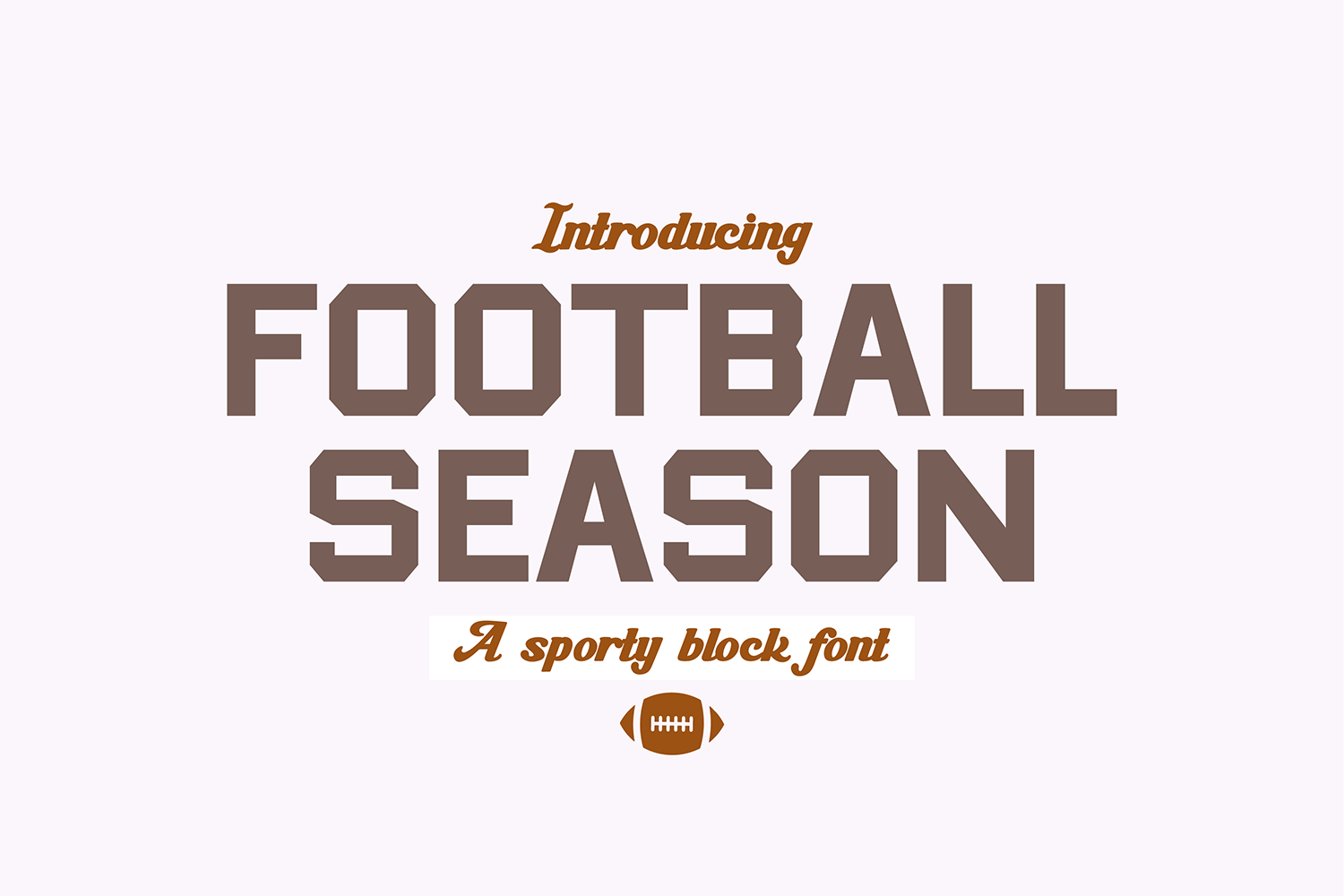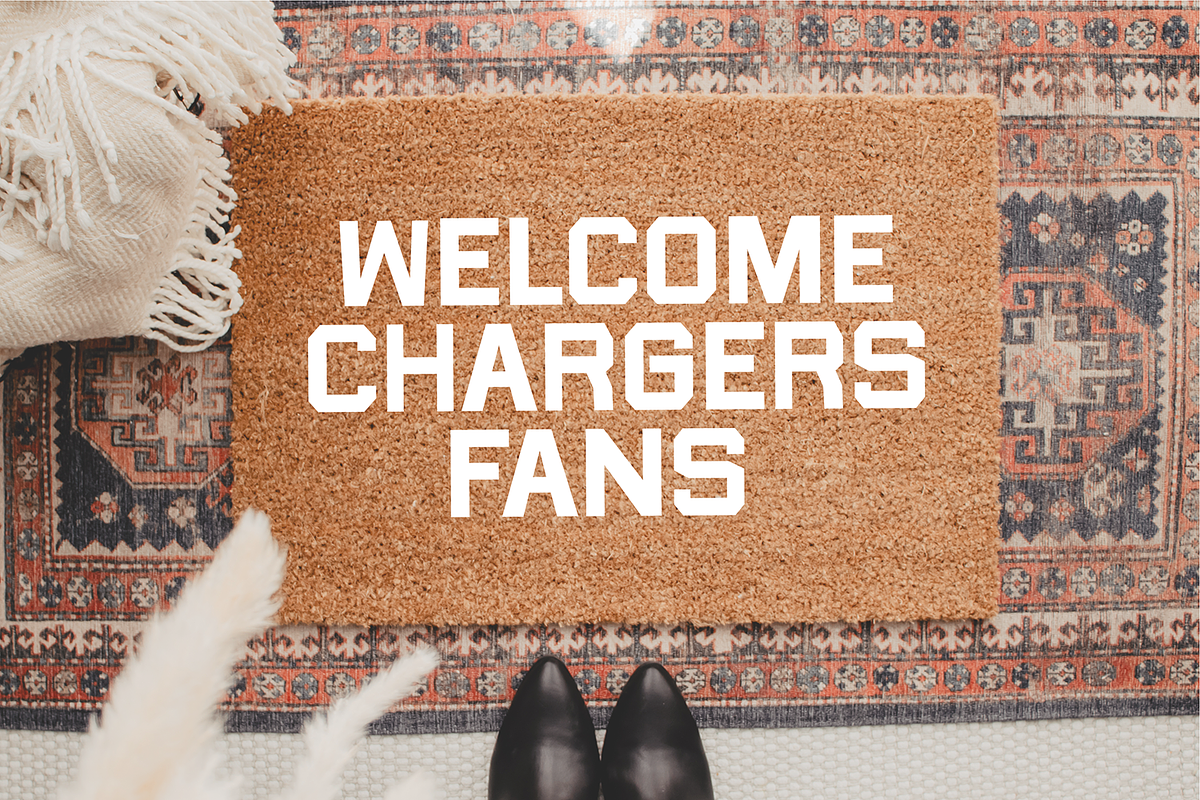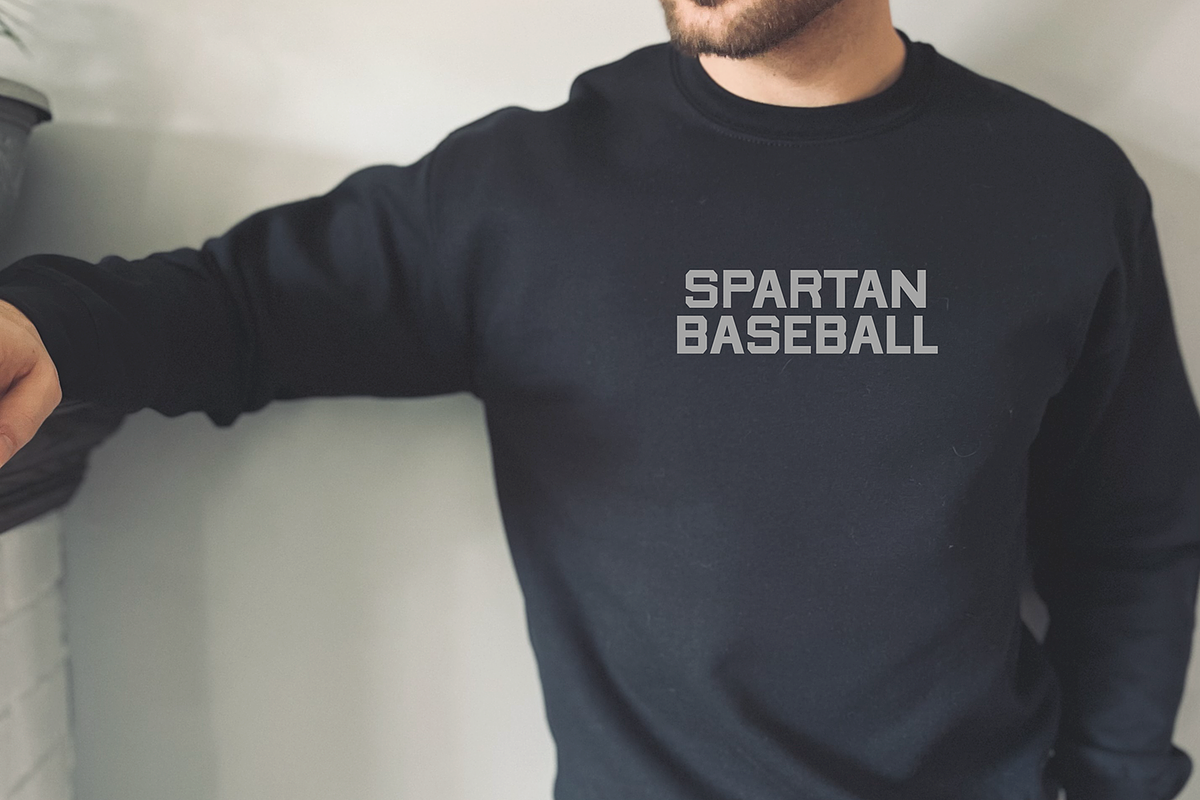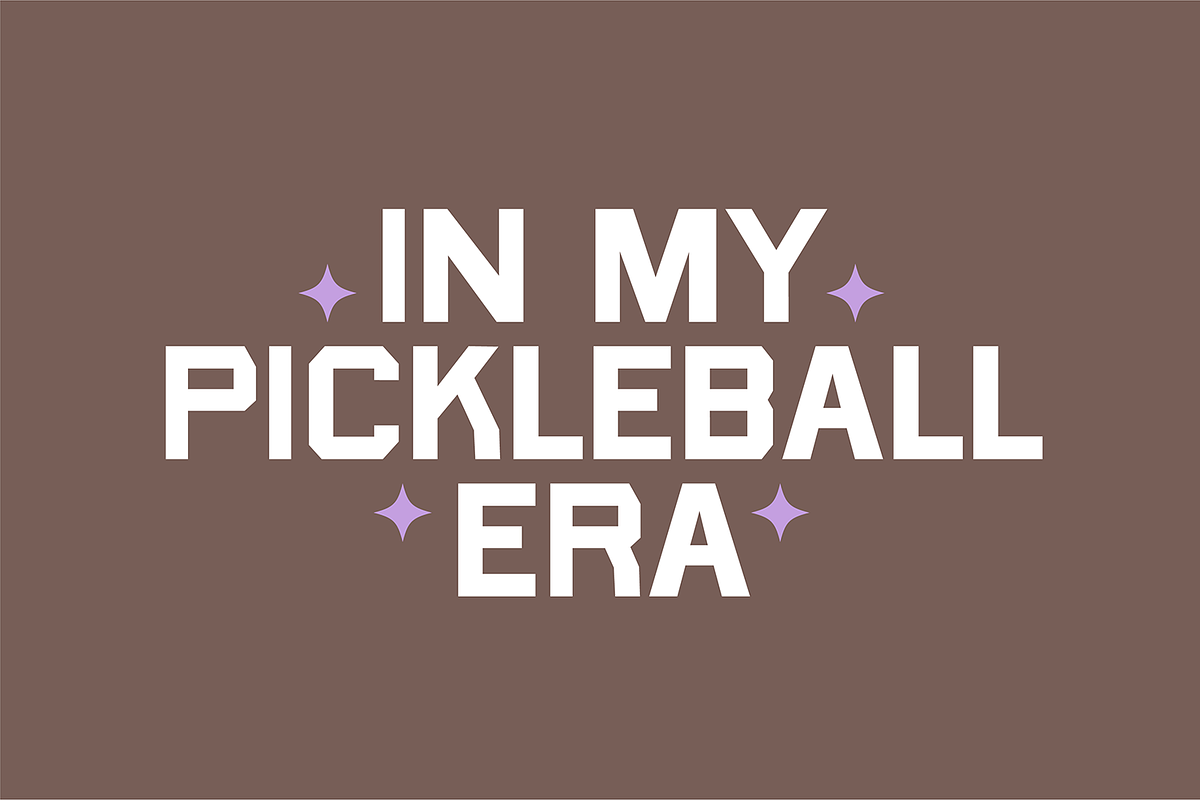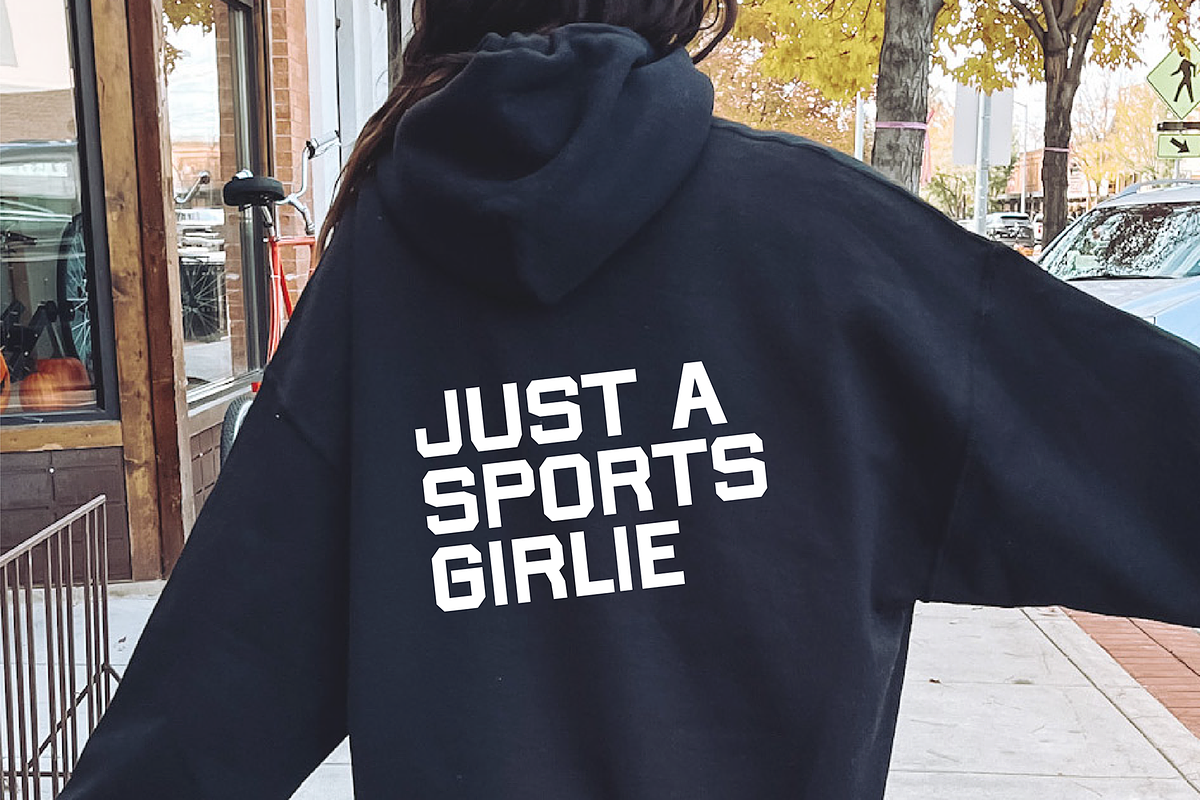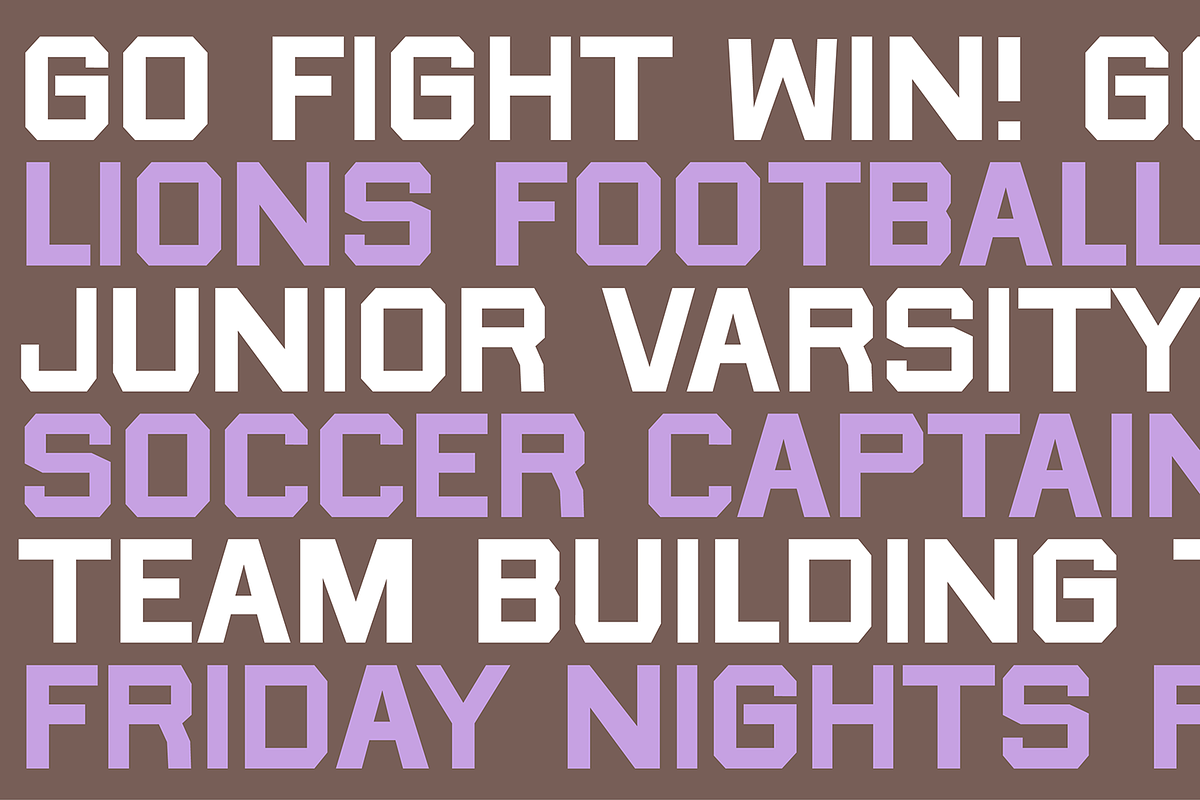
FOOTBALL SEASON Sporty Block Font
"Football Season" bold block sports font.
Font includes: All caps glyphs, numbers, and basic punctuation, and intl characters.